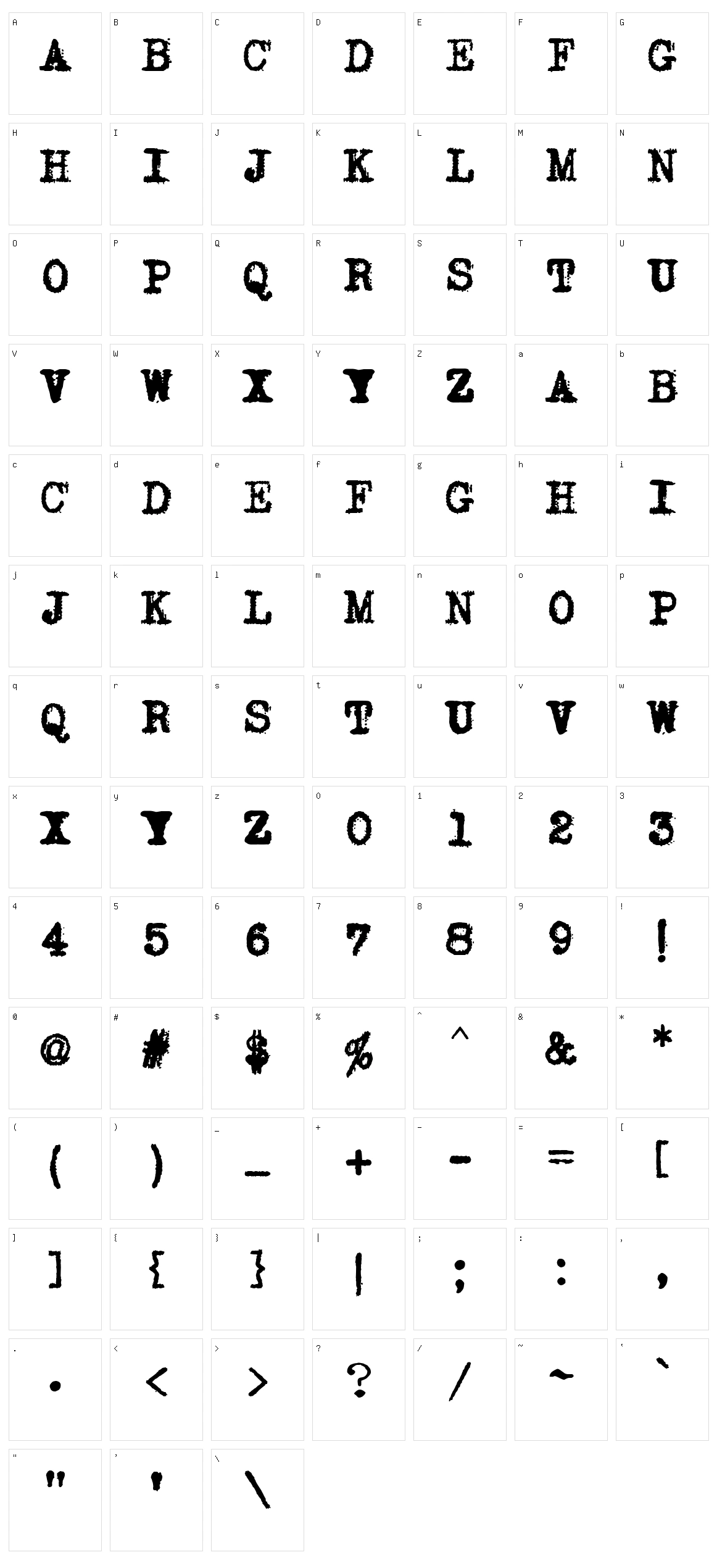
The free font Joe "Caps" Underwood is carefully designed by Phelan Riessen, showcasing a thoughtful balance of creativity and usability and falls under the Typewriter font style. When you download the ZIP file, it contains only 119.92 KB of font files, making it lightweight and quick to download. Please review the license details below to understand permitted usage and distribution rights. If license information is not available, we recommend using this font for personal projects only or contacting the author directly for commercial usage permissions.